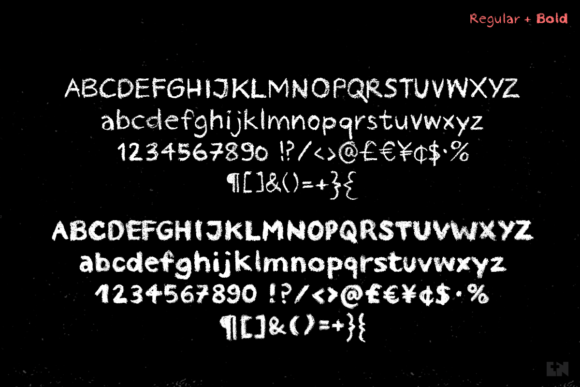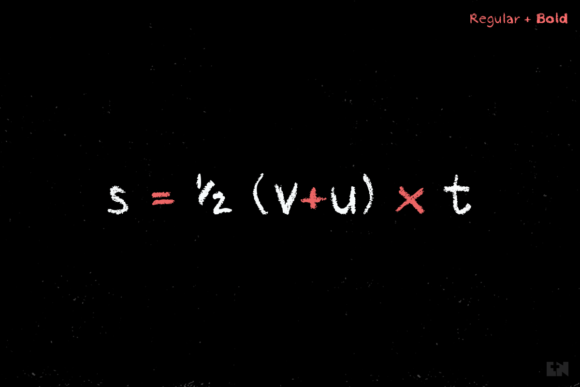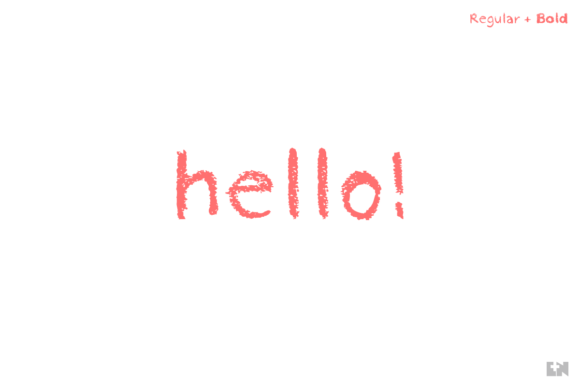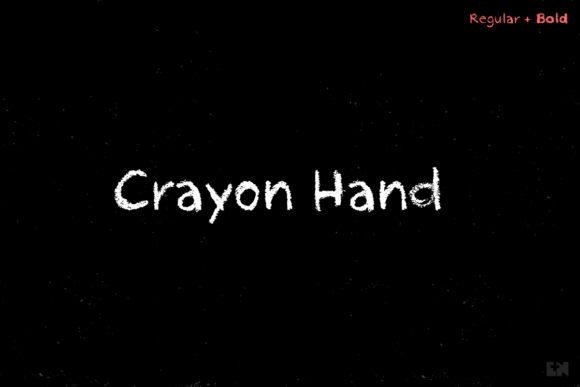
Crayon Hand Font: A Quick Solution for Designers and Crafters
If you’re lacking oil pastels, charcoal, crayons or time, Crayon Hand is a quick solution to any design project that requires an authentic touch! As a designer or crafter, you know how important it is to add a personal touch to your work. However, sometimes you’re short on time or materials. That’s where Crayon Hand comes in – a game-changing font that mimics the look of hand-drawn crayon art.
What is Crayon Hand Font?
Crayon Hand is a unique font designed to resemble hand-drawn text created with crayons. Its irregular shapes, uneven lines, and textured appearance give it a charming, homemade feel that’s perfect for a variety of design projects. Whether you’re working on a children’s book, a craft tutorial, or a social media graphic, Crayon Hand adds a touch of whimsy and personality to your work.
Benefits of Using Crayon Hand Font
- Time-Saving: With Crayon Hand, you can achieve the look of hand-drawn crayon art in a fraction of the time. No more struggling to create perfect crayon strokes or worrying about smudges and smears.
- Versatile: Crayon Hand is perfect for a wide range of design projects, from digital art to print materials. Use it for titles, headings, and body text to add a pop of personality to your work.
- Authentic Look: The font’s textured, hand-drawn appearance gives your work an authentic, homemade feel that’s sure to delight your audience.
Who Can Benefit from Crayon Hand Font?
Crayon Hand is a versatile font that can benefit a wide range of designers and crafters, including:
- Graphic Designers: Add a personal touch to your digital art, social media graphics, and print materials.
- Craft Bloggers: Use Crayon Hand to create eye-catching titles and headings for your craft tutorials and blog posts.
- Children’s Book Illustrators: Bring your stories to life with Crayon Hand’s playful, whimsical font.
- Scrapbookers: Add a touch of personality to your scrapbook pages with Crayon Hand’s hand-drawn font.
Tips for Using Crayon Hand Font
To get the most out of Crayon Hand, try these tips:
- Experiment with Colors: Crayon Hand looks great in a variety of colors, so don’t be afraid to experiment and find the perfect hue for your project.
- Mix and Match: Combine Crayon Hand with other fonts or graphics to create a unique look.
- Pay Attention to Size: Crayon Hand can be a bit irregular, so make sure to adjust the font size to suit your project’s needs.
Crayon Hand is a game-changing font that’s perfect for designers and crafters who want to add a personal touch to their work. With its authentic, hand-drawn appearance and ease of use, Crayon Hand is a quick solution to any design project that requires an authentic touch. So why not give it a try? Download Crayon Hand today and bring a touch of whimsy and personality to your next project!